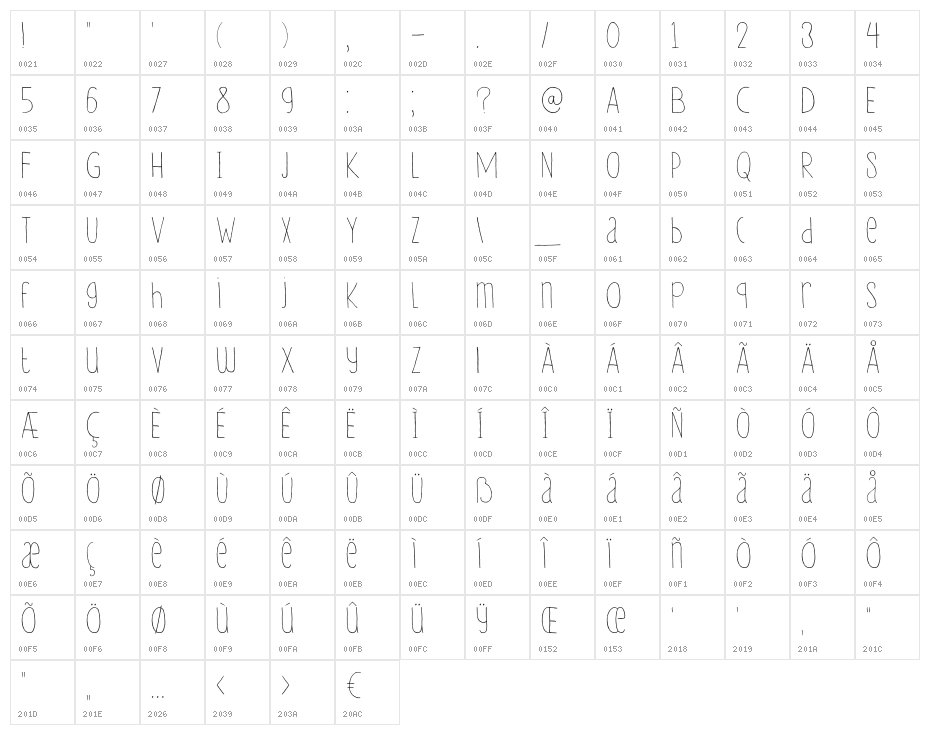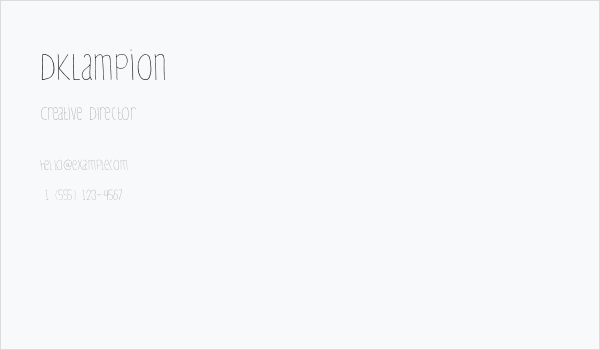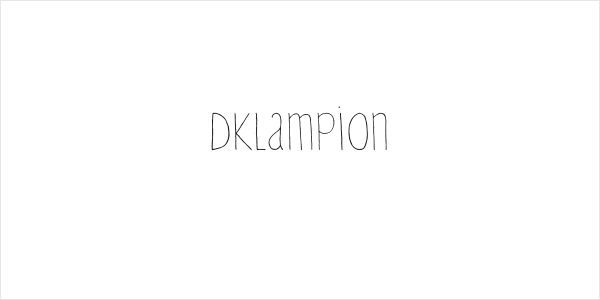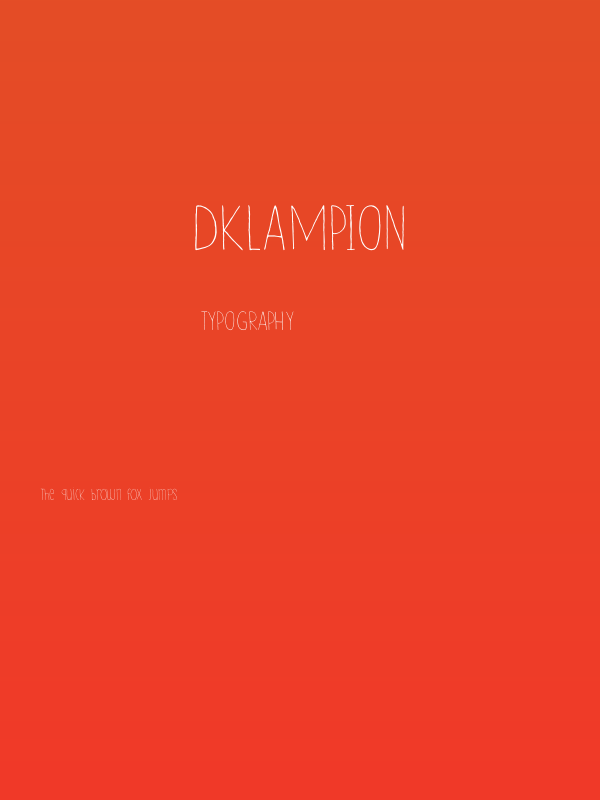
DKLampion Font
DKLampion Description
This font features a whimsical and playful handwritten style, characterized by its tall, narrow letters and slightly irregular strokes. The uppercase letters are elongated and maintain a consistent height, while the lowercase letters exhibit a charming, casual flow. The numbers are similarly styled, maintaining the font's overall quirky aesthetic. The special characters are crafted with the same playful touch, ensuring a cohesive look across all glyphs. This font's unique personality is perfect for projects that require a touch of individuality and creativity.
| Use Case | Headlines, Creative projects, Artistic designs |
| Proposed Projects | Ideal for children's books, creative invitations, playful branding, and artistic posters. |